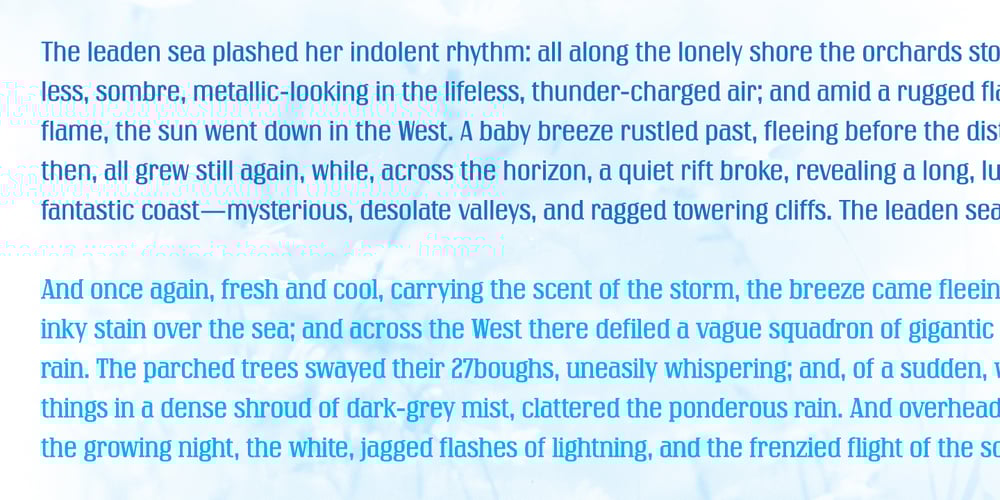
Artartika Font Family was designed by Slobodan Jelesijevic and published by Tour De Force. Artartika contains 2 styles and family package options. Artartika contains two Regulars – one Slab and one Sans Serif. Condensed width, geometric shaped, with distinctive stem contrast, Artartika recommends itself for titles, product names, branding, but it’s also fully applicable for longer text and paragraph use. Contains Extended Latin character set with Cyrillic support.